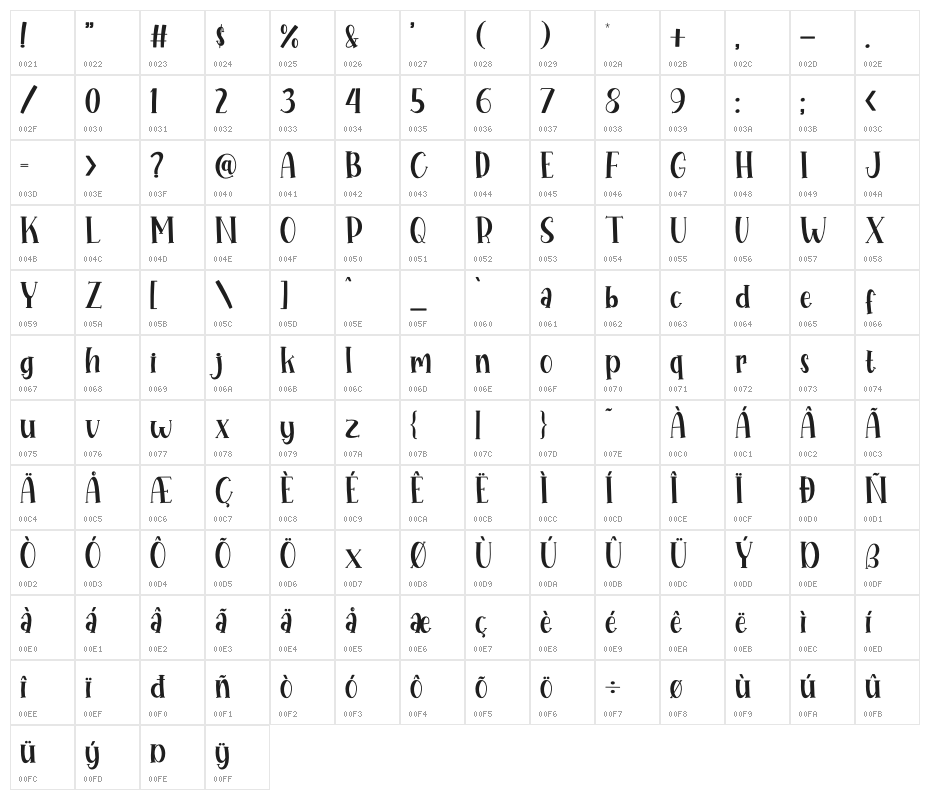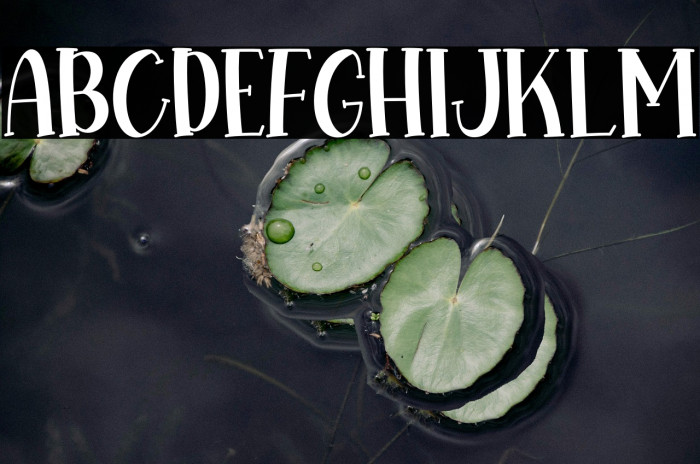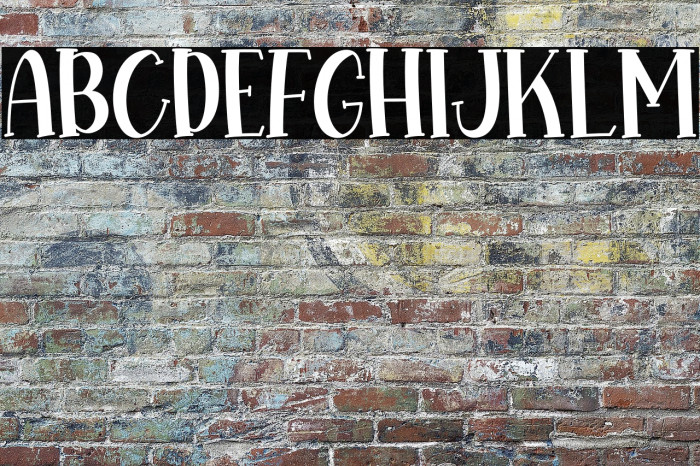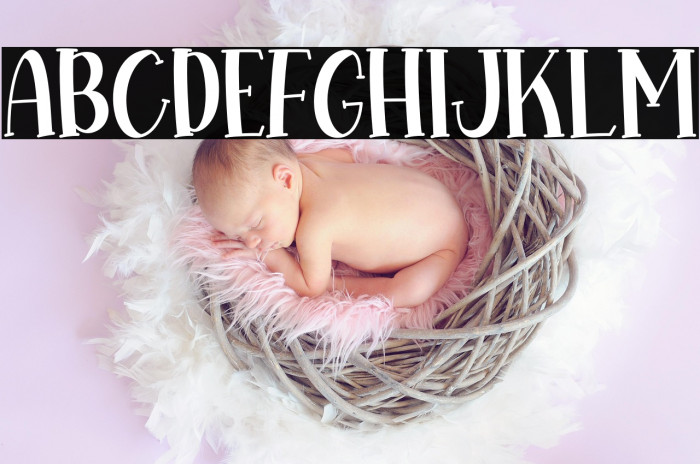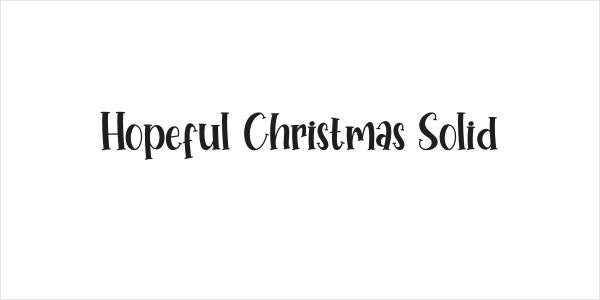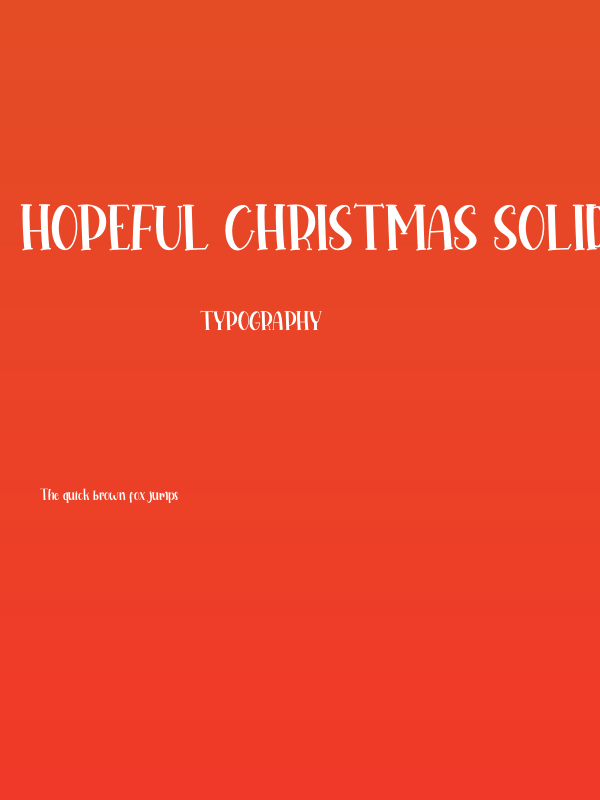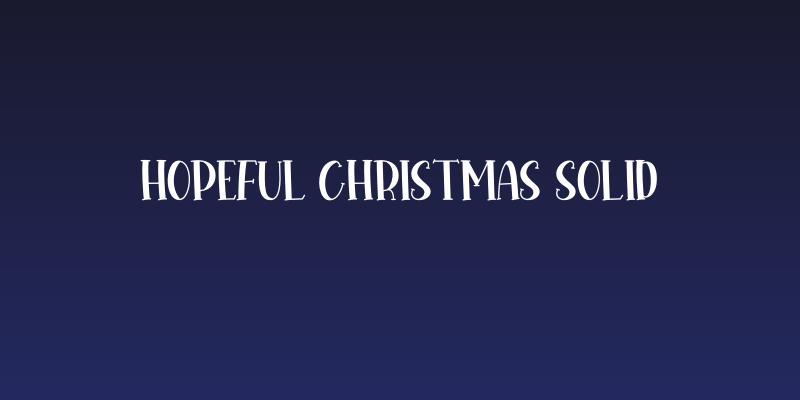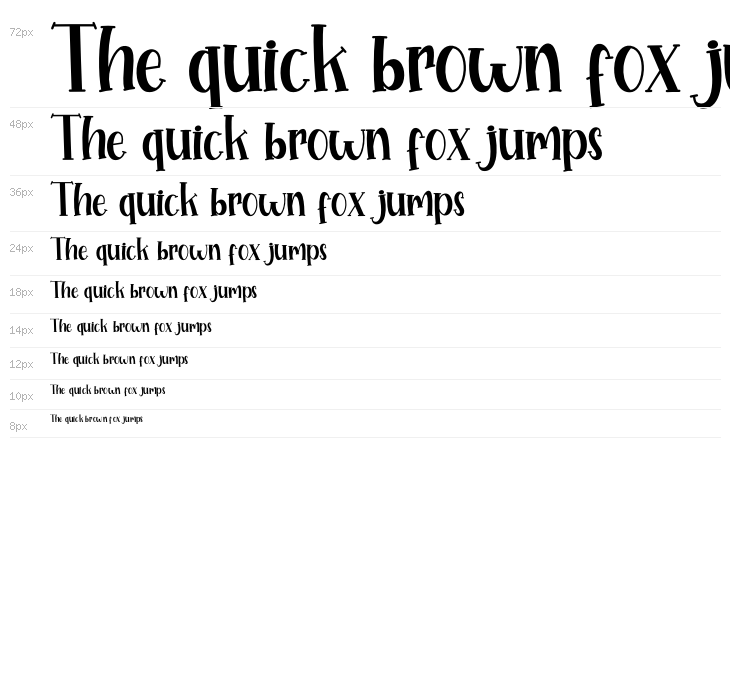
Hopeful Christmas Solid Font
Hopeful Christmas Solid Description
This font exudes a playful and festive charm, characterized by its whimsical and slightly irregular letterforms. The uppercase letters are tall and slender, with a slight tilt that adds a dynamic feel. The lowercase letters maintain a consistent style, with rounded edges and a friendly appearance. The numbers are bold and easily readable, matching the overall playful theme. Special characters are creatively designed, adding to the font's unique personality. The strokes vary in thickness, providing a moderate contrast that enhances readability while maintaining a decorative flair. This font is perfect for holiday-themed projects, invitations, and any design that requires a touch of cheerfulness and creativity.
| Overall Style | Festive, Playful |
| Proposed Projects | Ideal for holiday cards, festive invitations, playful branding, and decorative posters. |